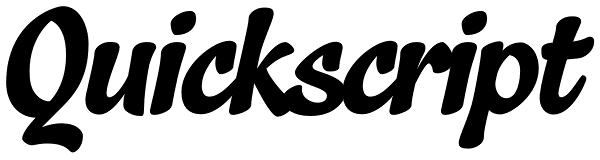
Quickscript
Quickscript makes fifties-style hand lettering quick and easy. The type is retro but with grafitti undertones that give it a modern feel at the same time; it’s perfect for nostalgic posters, T-shirts, cafe menus and signage. OpenType-savvy...